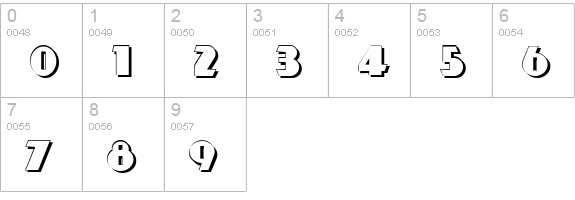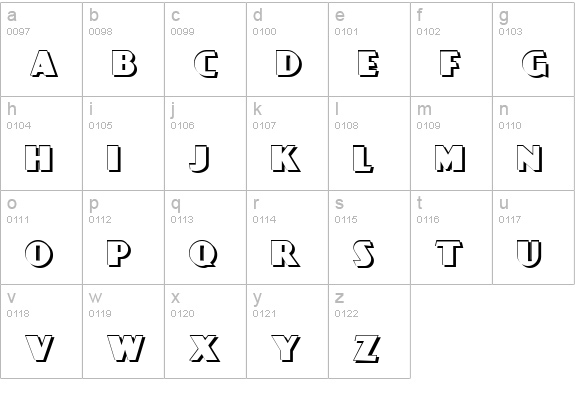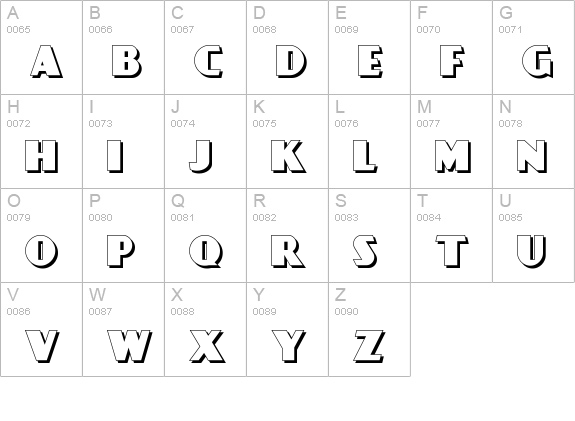
Day Poster Shadow NF font is a bold and eye-catching typeface that exudes a sense of modernity and creativity. With its unique shadow effect, this font is perfect for making a statement in various design projects such as posters, flyers, and social media graphics. The thick, blocky letters give off a strong and impactful look, making it ideal for headlines and titles that need to stand out. What's even better is that Day Poster Shadow NF font is available for free download at FontsMarket.com. You can easily add this versatile font to your collection without any cost, allowing you to unleash your creativity without any limitations. Whether you're a graphic designer, artist, or DIY enthusiast, this font is a must-have for adding a touch of flair to your projects. So go ahead and grab Day Poster Shadow NF font today and elevate your designs to the next level!